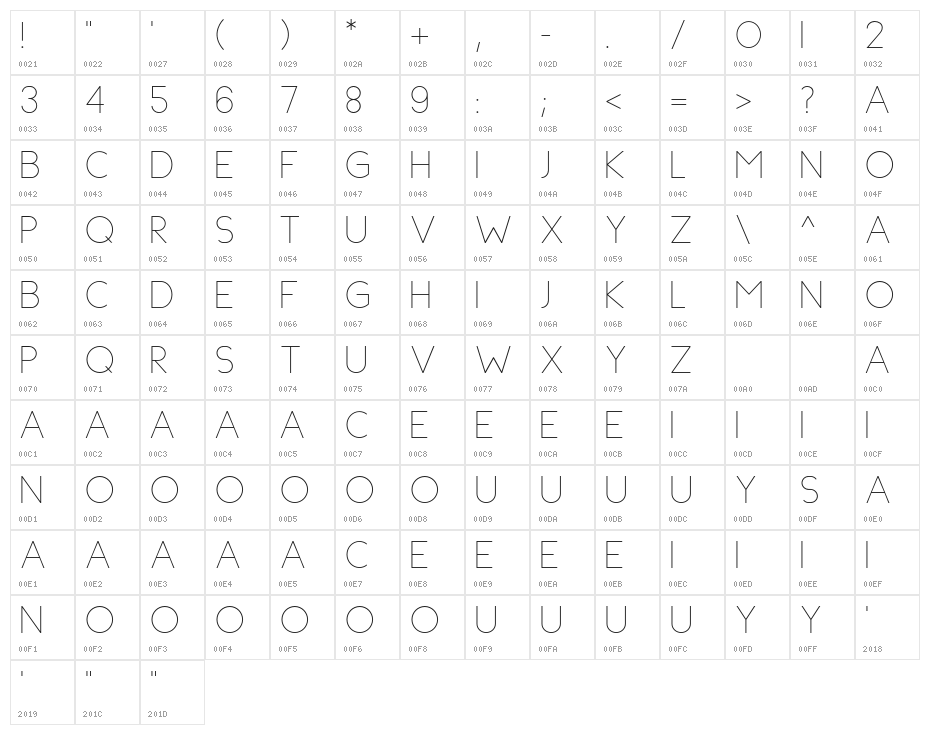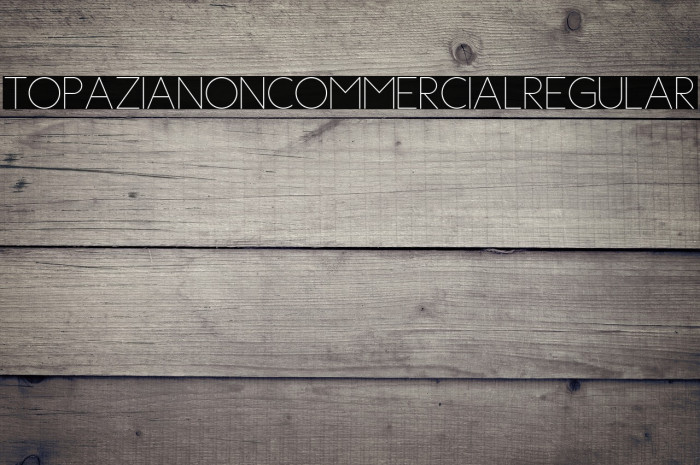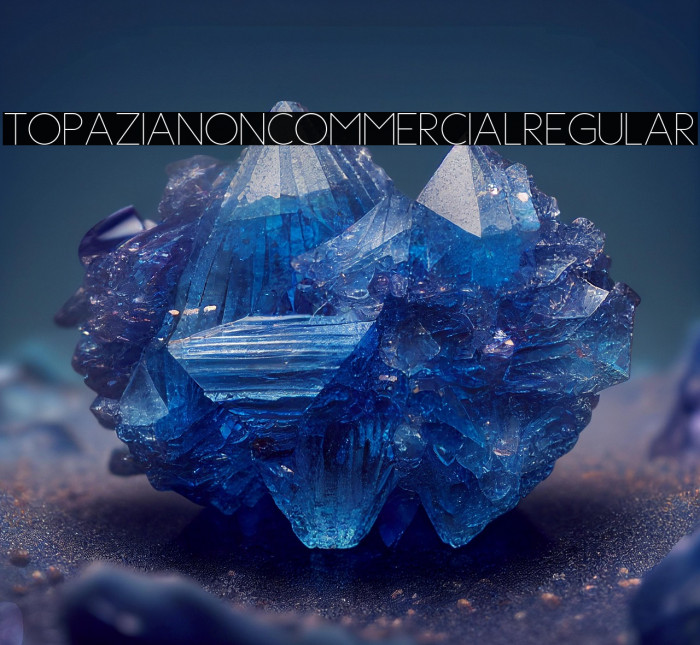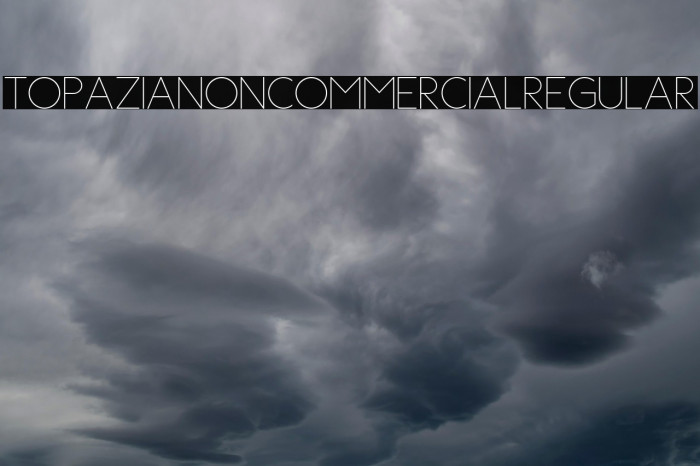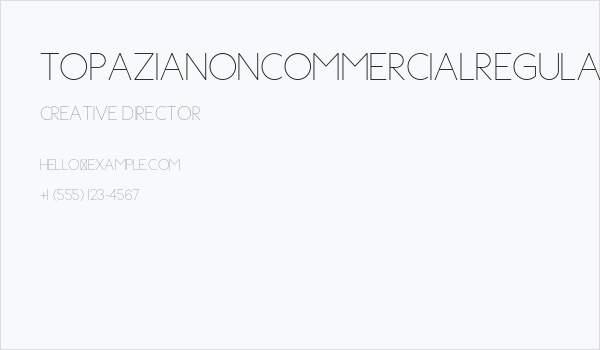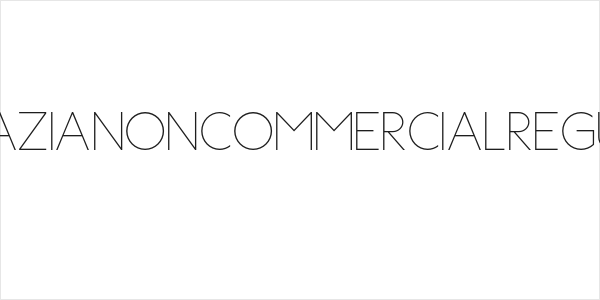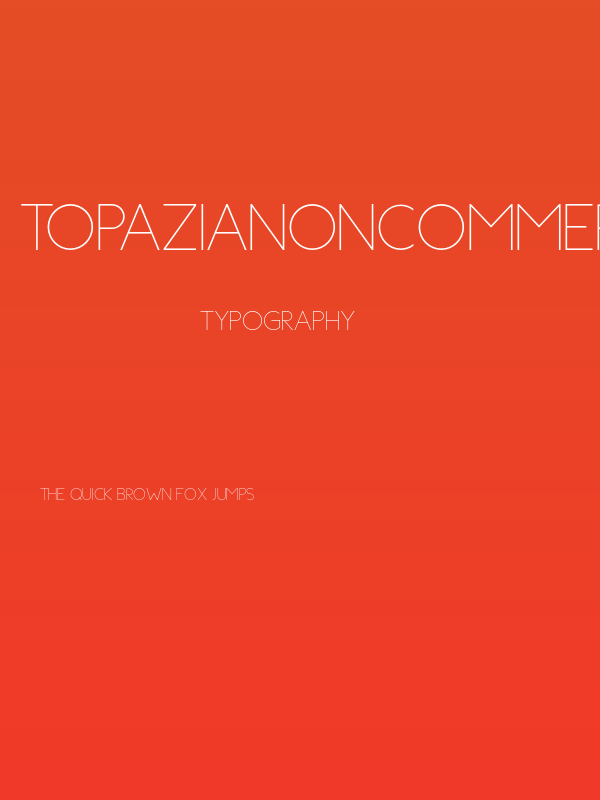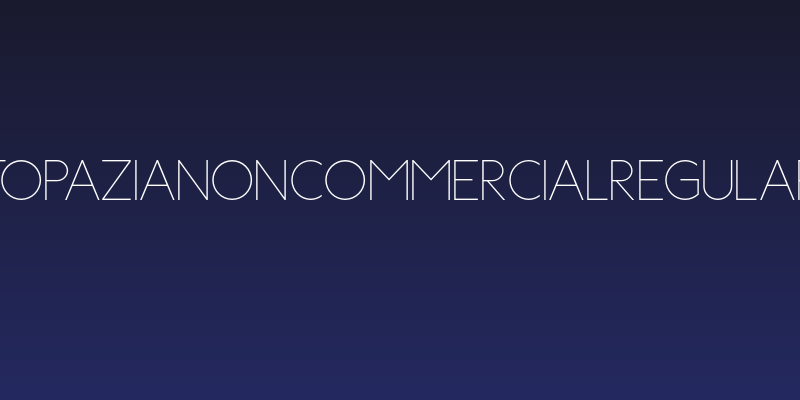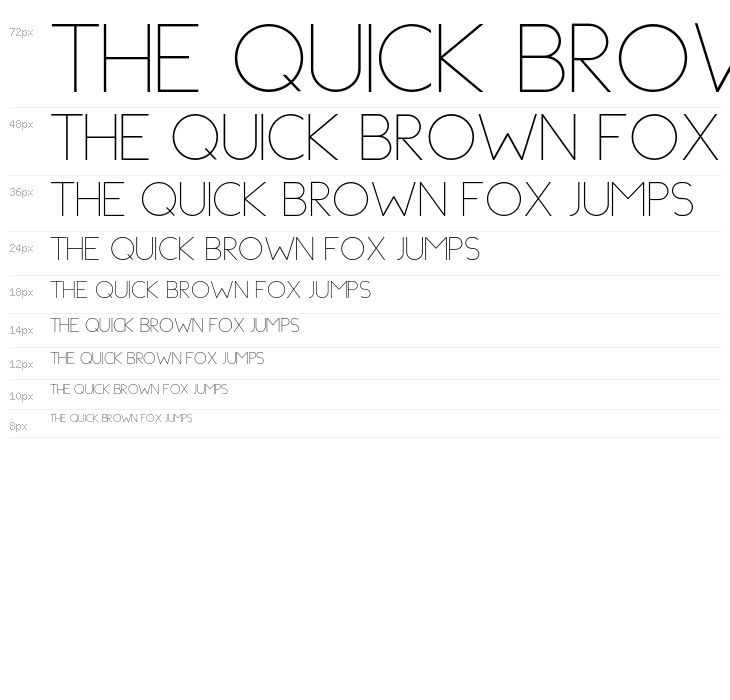
TopaziaNonCommercialRegular Font
TopaziaNonCommercialRegular Description
This font features a sleek and modern design with clean, geometric lines. The characters are constructed with a minimalist approach, emphasizing simplicity and elegance. The uppercase and lowercase letters maintain a consistent height, contributing to a uniform appearance. The numerals are distinct and easy to read, complementing the overall style. Special characters are included, though some appear as placeholders, suggesting a focus on the core alphabet and numerals. The font's thin strokes and open spacing create a sense of airiness, making it suitable for contemporary design projects.
Proposed ProjectsIdeal for branding, editorial design, and digital interfaces where a modern and clean aesthetic is desired.